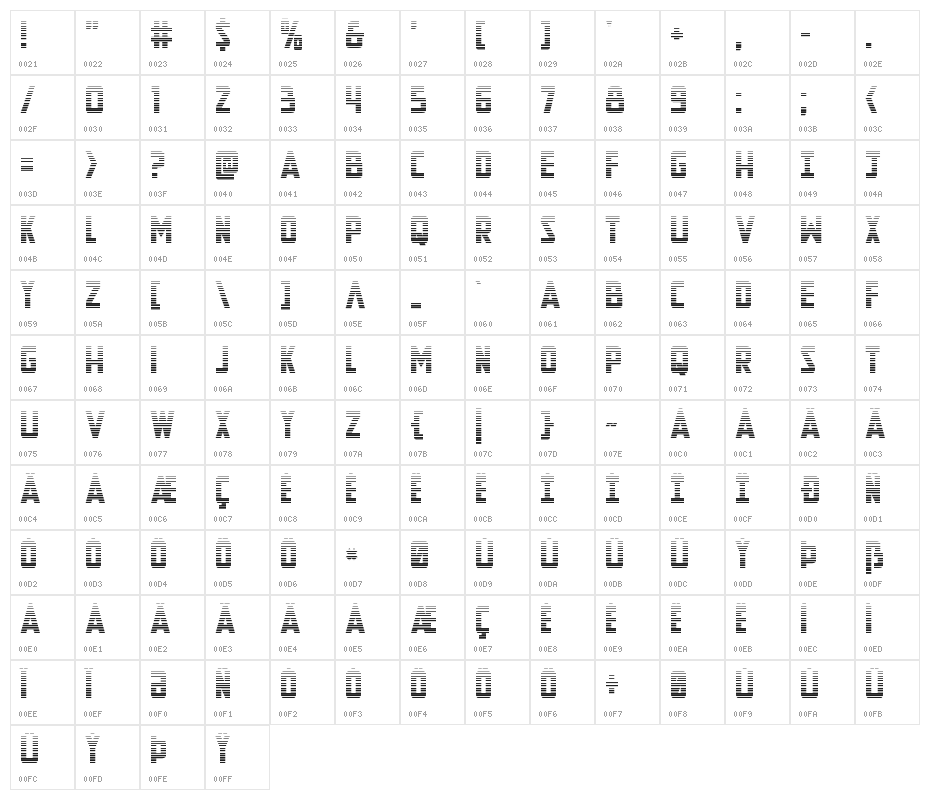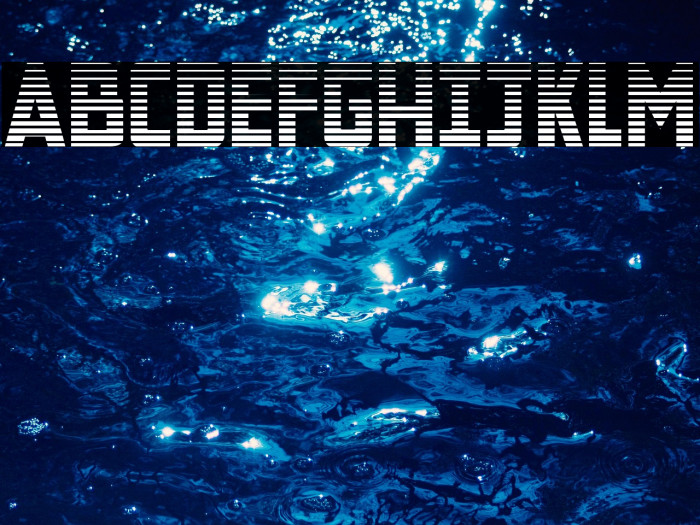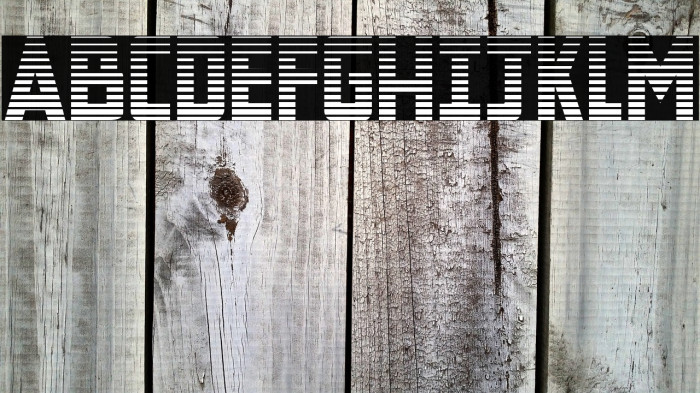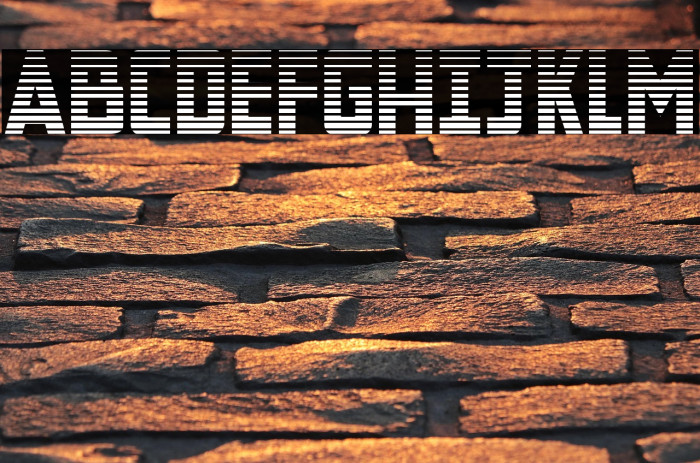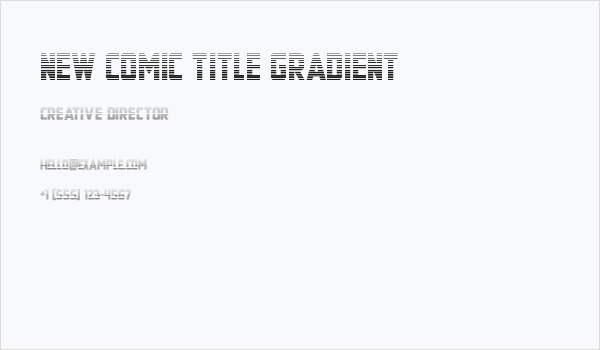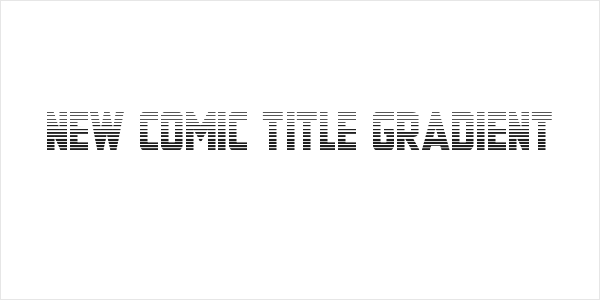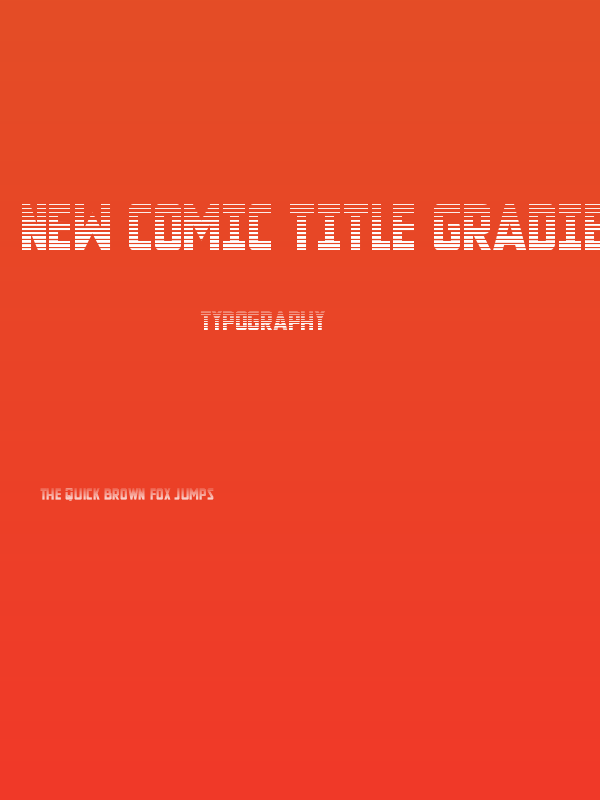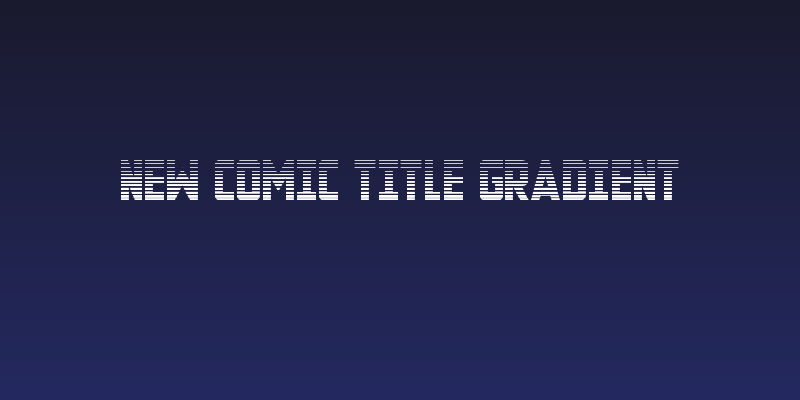
New Comic Title Gradient Font
New Comic Title Gradient Description
This font features a bold, modern design with a unique striped pattern running horizontally across each character. The uppercase and lowercase letters, as well as numbers and special characters, are all constructed with a consistent line thickness, creating a cohesive and striking visual effect. The font's geometric structure and clean lines make it highly legible, while the striped detailing adds a dynamic and contemporary flair. This font is ideal for projects that require a bold statement or a futuristic aesthetic, as it combines readability with a distinctive style.
| Proposed Projects | Ideal for branding, posters, headlines, and any design requiring a modern, eye-catching typeface. |